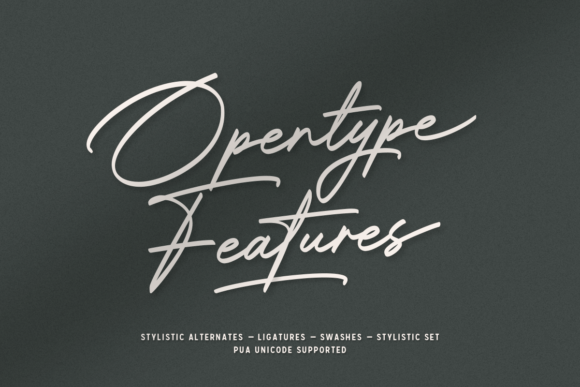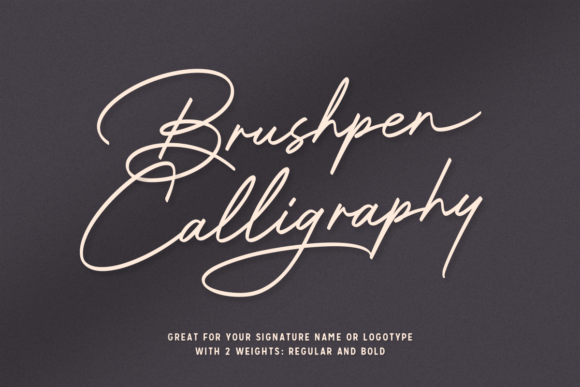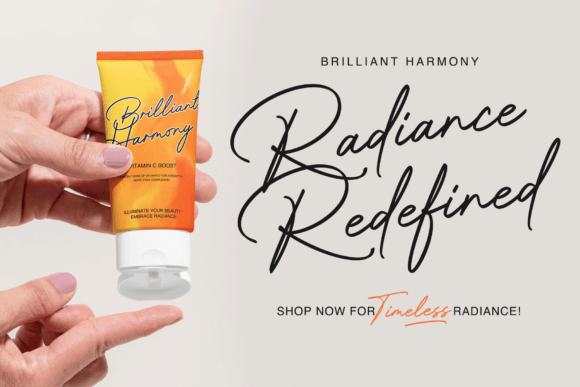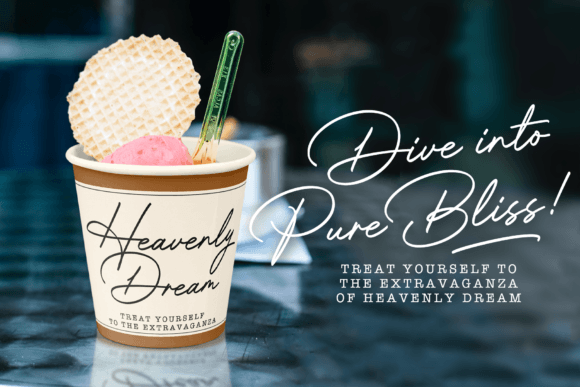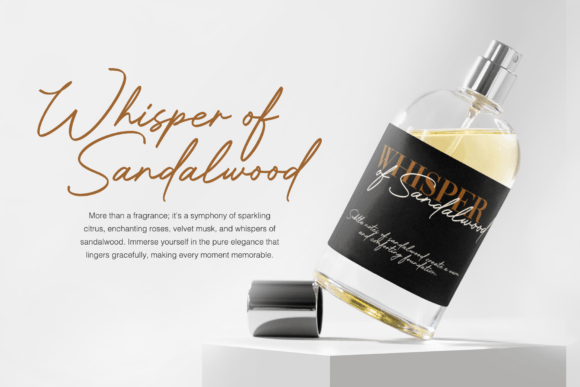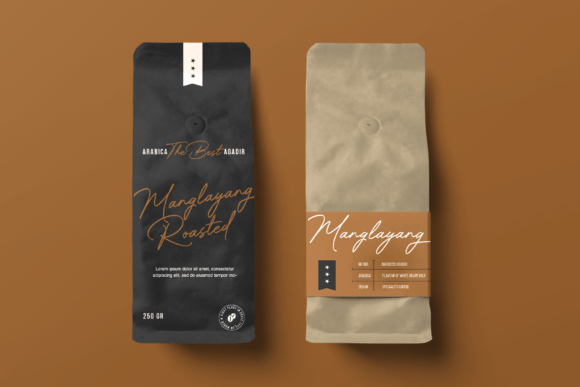
Bradford Signature Font: Elevate Your Designs with Elegance and Sophistication
In the world of typography, a font can make or break a design project. When it comes to creating a lasting impression, the right font can elevate your work from ordinary to extraordinary. Introducing the Bradford Signature Font, a sophisticated script font that radiates elegance and class. Its flowing lines and delicate curves evoke a sense of refinement and grace, making it perfect for wedding invitations, logos, and branding materials.
The Essence of Bradford Signature Font
Bradford Signature is more than just a font – it’s an experience. Its elegant and refined design makes it an ideal choice for designers and crafters looking to add a touch of luxury and sophistication to their work. Whether you’re creating wedding invitations, designing a logo, or developing branding materials, Bradford Signature Font is the perfect choice.
Key Features of Bradford Signature Font
- Elegant and Refined Design: Bradford Signature Font boasts a sophisticated script design that exudes elegance and refinement.
- Flowing Lines and Delicate Curves: The font’s flowing lines and delicate curves create a sense of movement and fluidity, adding a touch of dynamism to your designs.
- Perfect for Wedding Invitations: Bradford Signature Font is an ideal choice for wedding invitations, adding a touch of luxury and sophistication to your designs.
- Scalable and Versatile: The font is highly scalable, making it perfect for use in a variety of design projects, from business cards to billboards.
Use Cases for Bradford Signature Font
Bradford Signature Font is a versatile font that can be used in a variety of design projects, including:
- Wedding Invitations: Add a touch of elegance and sophistication to your wedding invitations with Bradford Signature Font.
- Logos and Branding Materials: Use Bradford Signature Font to create stunning logos and branding materials that exude luxury and sophistication.
- Stationery and Paper Goods: Add a touch of refinement and elegance to your stationery and paper goods with Bradford Signature Font.
- Advertising and Marketing Materials: Use Bradford Signature Font to create eye-catching advertising and marketing materials that grab attention.
Why Choose Bradford Signature Font?
With so many fonts available, why choose Bradford Signature Font? Here are just a few reasons:
- Unique and Distinctive: Bradford Signature Font is a unique and distinctive font that will set your designs apart from the rest.
- Elegant and Sophisticated: The font’s elegant and sophisticated design makes it perfect for high-end designs and luxury brands.
- Easy to Read and Understand: Despite its elegant design, Bradford Signature Font is easy to read and understand, making it perfect for use in a variety of design projects.
Tips for Using Bradford Signature Font
To get the most out of Bradford Signature Font, here are a few tips:
- Use it Sparingly: Bradford Signature Font is a bold and elegant font, so use it sparingly to make a lasting impression.
- Pair it with Other Fonts: Experiment with pairing Bradford Signature Font with other fonts to create a unique and eye-catching design.
- Adjust the Size and Color: Adjust the size and color of Bradford Signature Font to suit your design needs.
In conclusion, Bradford Signature Font is a sophisticated script font that radiates elegance and class. Its flowing lines and delicate curves evoke a sense of refinement and grace, making it perfect for wedding invitations, logos, and branding materials. With its unique and distinctive design, Bradford Signature Font is sure to elevate your designs and add a touch of luxury and sophistication to any project.